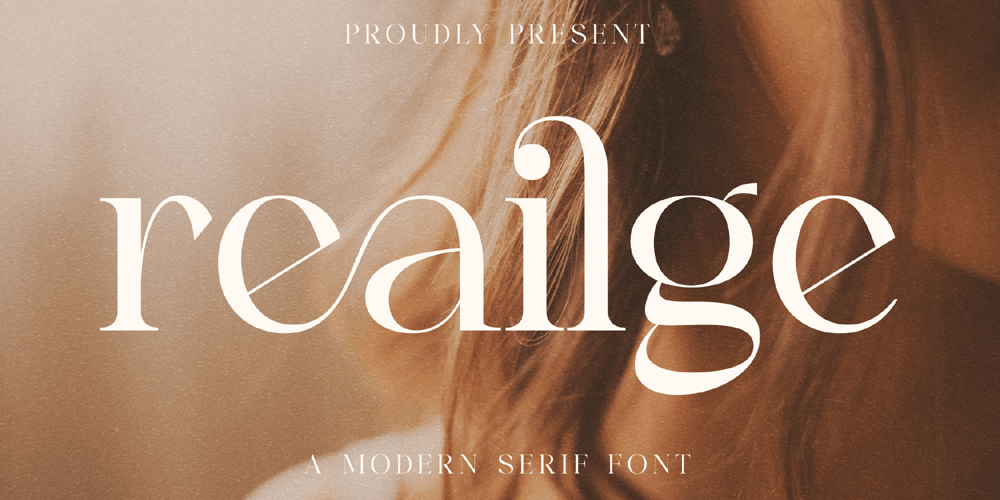
Reailge Font Family was designed by Heru Utama Putra and published by Letterena Studios. Reailge contains 2 styles and family package options. Proudly present Reailge, a modern and classic serif font with a modern style and unique look. This typeface is perfect for an elegant & luxury logo, book or movie title design, fashion brand, magazine, clothes, lettering, quotes, and so much more.